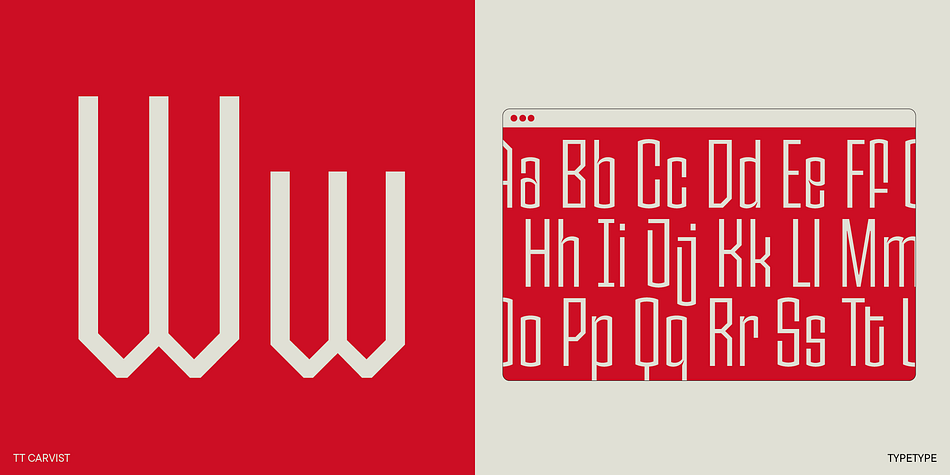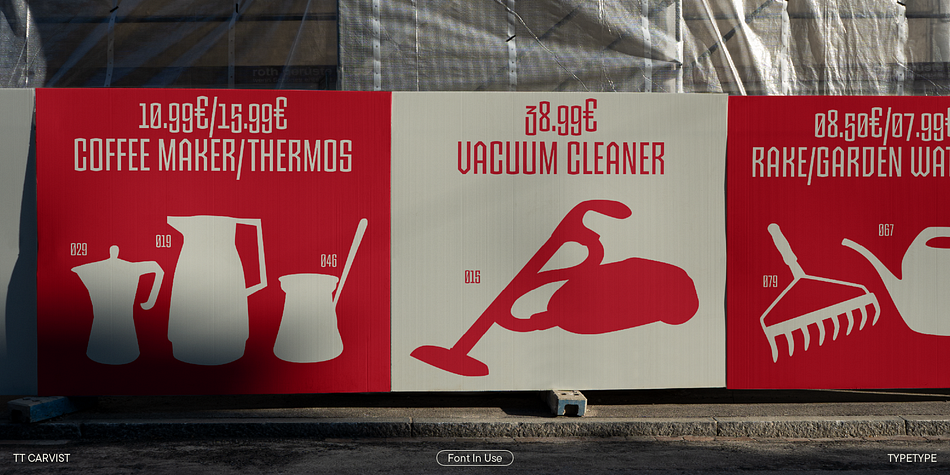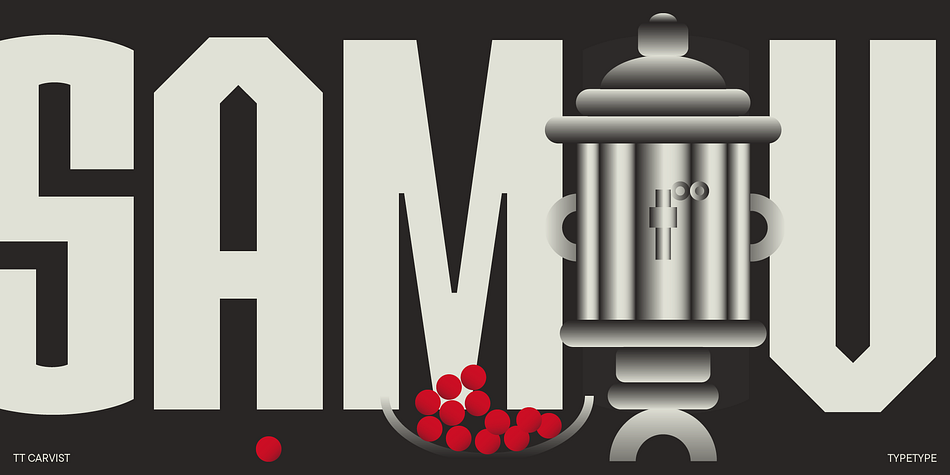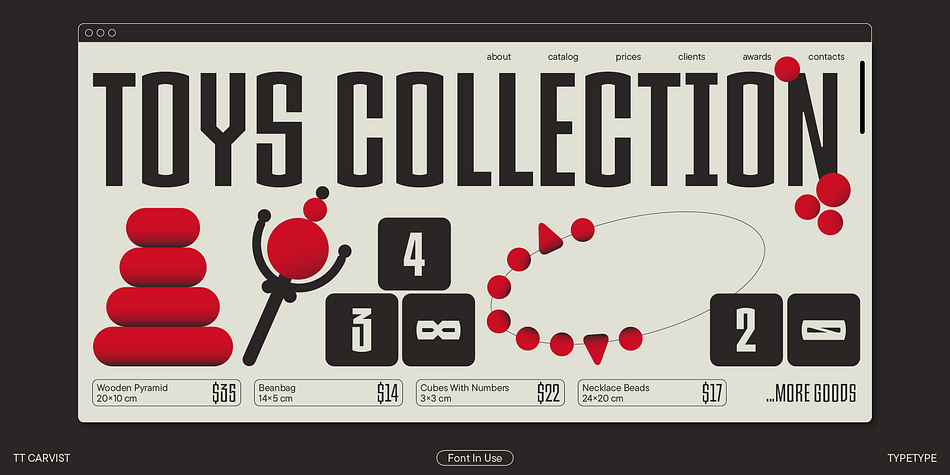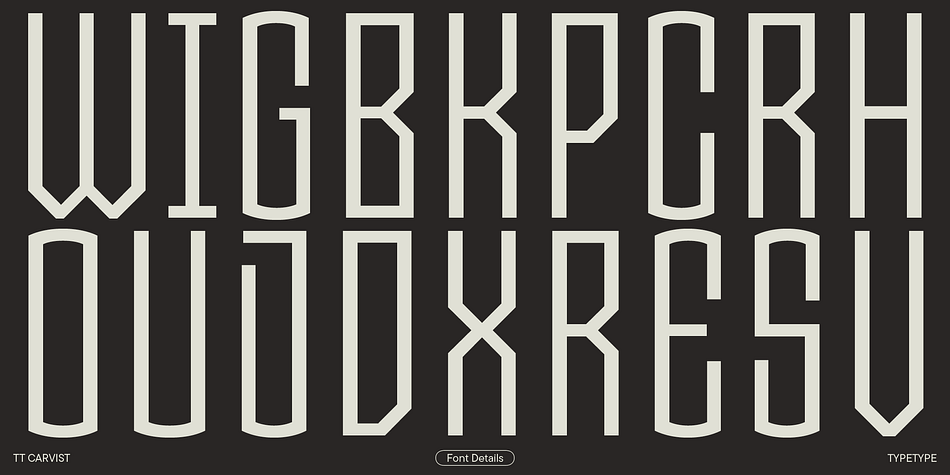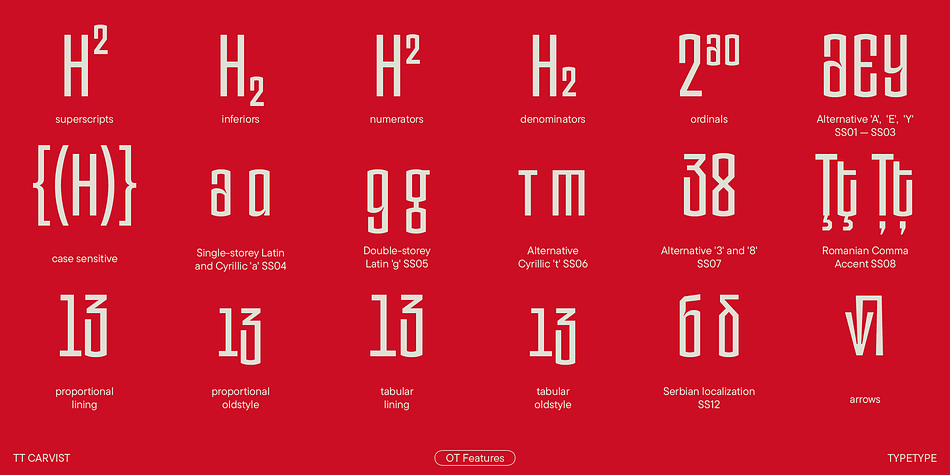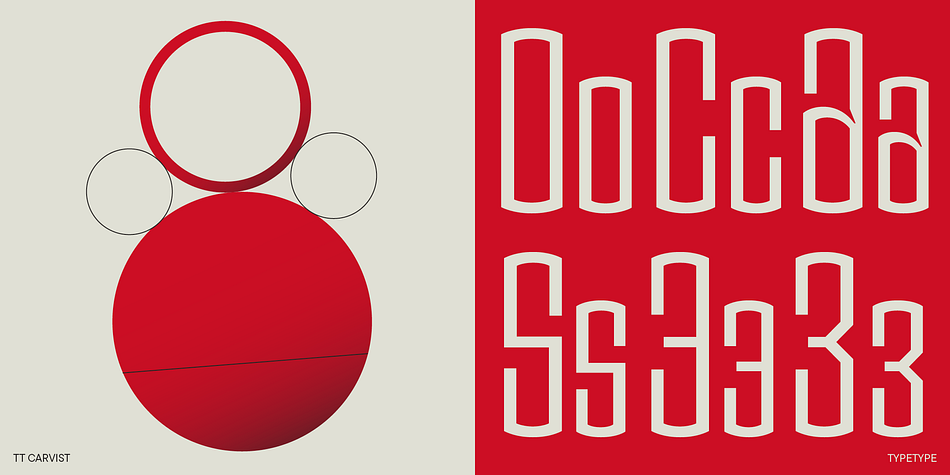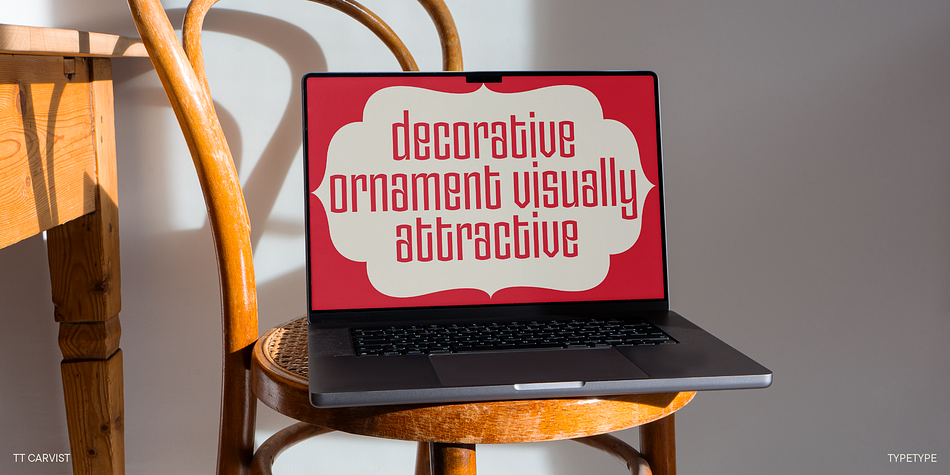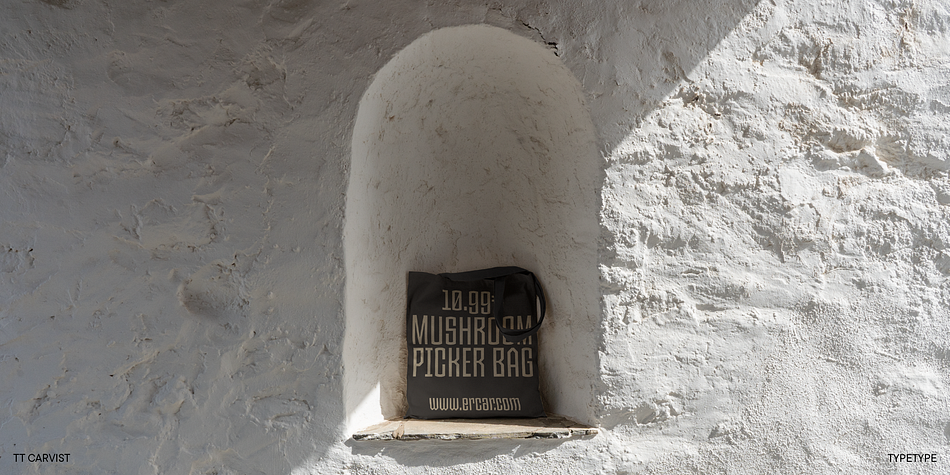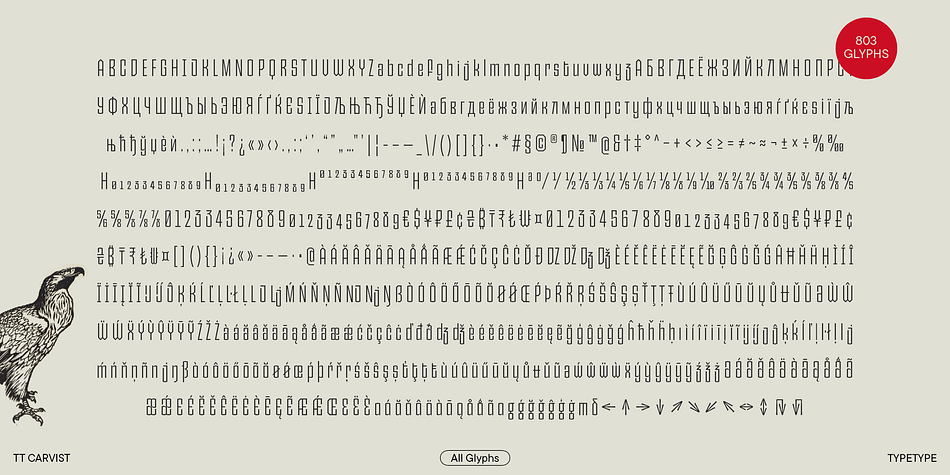
TT Carvist
Designed by Antonina Zhulkova, Ivan Gladkikh and TypeType Team, TT Carvist is a display sans font family. This typeface has six styles and was published by Typetype.
Introducing TT Carvist—a new display typeface by TypeType! Peculiar, playful, and courageous—this font does an excellent job of grabbing attention!
TT Carvist is a modern, experimental sans serif with extra narrow proportions. At its core lies our TT Tunnels typeface, which has transformed into something completely new and unique.
TT Carvist is notable for its modular structure, 45-degree diagonal outer cuts, closed apertures, and distinctively large ink traps of the lowercase letters. Interestingly, the font doesn’t feature any round letterforms. For example, the tops and bottoms of the letters O and C are rounded, while the sides remain straight. This design choice is also present in the triangular glyphs like v, w, and y, which have straight stems.
The name of the typeface is a reference to stone carving, which is clearly seen in its characteristic traits: geometric precision and sturdy aesthetic. However, TT Carvist can be different. Its bold style looks solid and creates a sense of an impenetrable maze, leaving almost no white space between characters. The light font style, on the contrary, is gentle and elegant, with its pattern resembling weightless lace.
Besides, alternate characters and symbols were added to the typeface to enable customization for specific tasks and make the font even more peculiar. For example, we implemented ““wicker”” figures 3 and 8, the uppercase letters A and Y, which mirror the design of the lowercase ones, a distinctive lowercase E, a three-legged Cyrillic т, unusual u-turn arrows, and a unique symbol for @.
The Latin alphabet of TT Carvist has a gothic mood, whereas the Cyrillic one’s look is closer to the ancient decorative lettering. Still, the typeface looks fresh and modern, making it an excellent choice for book, magazine, and poster design, event announcements, and more.